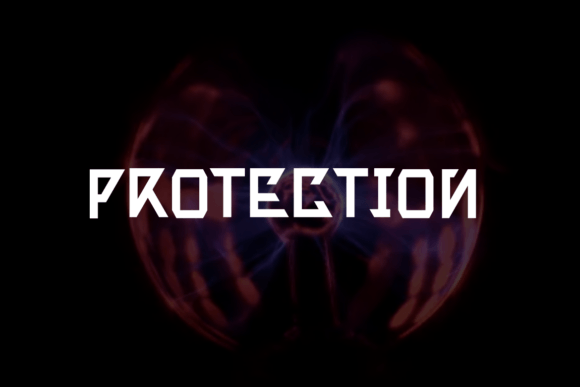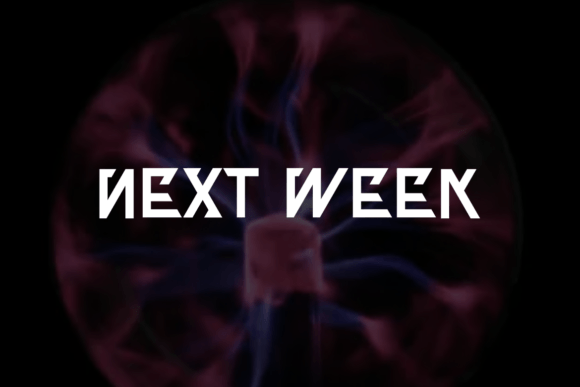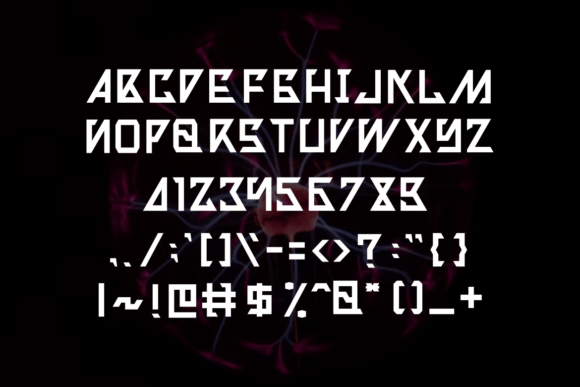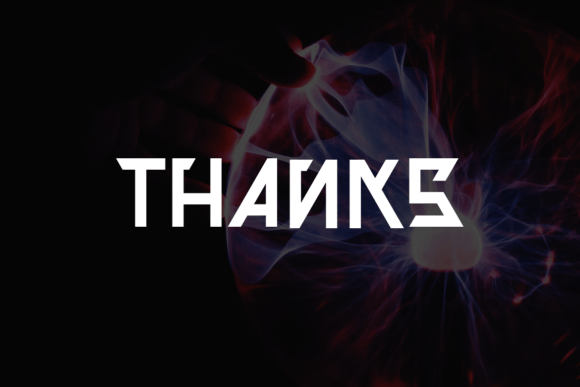
Introducing Grouten Font: The Modern Display Font for Bold Designs
In the world of typography, a good font can make all the difference in creating a lasting impression. For designers and crafters, finding the perfect font for their projects can be a daunting task. That’s why we’re excited to introduce Grouten Font, a modern display font that’s bold, authentic, and versatile. In this article, we’ll dive into the features and benefits of Grouten Font, and explore how it can elevate your branding projects to the next level.
What is Grouten Font?
Grouten Font is a carefully crafted display font that’s designed to make a statement. With its bold and authentic style, this font is perfect for creating eye-catching logos, t-shirt prints, and creative products. Whether you’re a designer, crafty entrepreneur, or simply someone who loves to create, Grouten Font is an excellent addition to your typography toolkit.
Key Features of Grouten Font
- Bold and Authentic Style: Grouten Font boasts a unique and confident style that’s sure to grab attention. Its bold lines and authentic feel make it perfect for creating striking designs.
- Versatile and Adaptable: This font is designed to be versatile and adaptable, making it suitable for a wide range of projects, from logos and branding to t-shirt printing and creative products.
- Easy to Read: Despite its bold style, Grouten Font is easy to read, even at smaller sizes. This makes it perfect for use on various platforms, from business cards to billboards.
- High-Quality Design: Grouten Font is designed with high-quality craftsmanship in mind. Its smooth lines and carefully balanced letterforms ensure a professional finish.
Use Cases for Grouten Font
So, what can you create with Grouten Font? The possibilities are endless! Here are some ideas to get you started:
- Logos and Branding: Create a bold and memorable logo for your business or brand with Grouten Font.
- T-Shirt Printing: Design eye-catching t-shirts with Grouten Font that’s sure to turn heads.
- Creative Products: Use Grouten Font to create stunning designs for mugs, phone cases, and other creative products.
- Advertising and Marketing: Grouten Font is perfect for creating bold and attention-grabbing ads, flyers, and brochures.
Why Choose Grouten Font?
With so many fonts available, why choose Grouten Font? Here are just a few reasons:
- Unique Style: Grouten Font offers a unique and distinctive style that’s sure to set you apart from the crowd.
- Time-Saving: With Grouten Font, you can create stunning designs in no time. Its bold style and easy-to-read design make it perfect for quick and effective designs.
- Professional Finish: Grouten Font is designed to deliver a professional finish, every time. Its high-quality design and smooth lines ensure a polished look.
In conclusion, Grouten Font is an exceptional modern display font that’s perfect for designers, crafters, and anyone looking to create bold and eye-catching designs. With its unique style, versatility, and high-quality design, Grouten Font is an excellent addition to any typography toolkit. So why wait? Try Grouten Font today and take your designs to the next level!